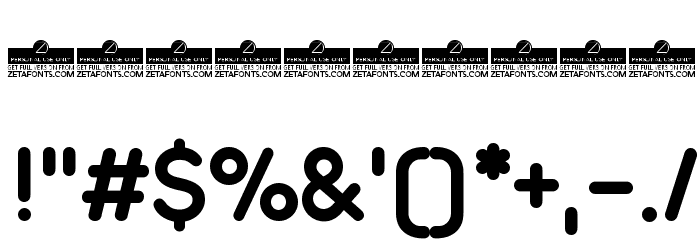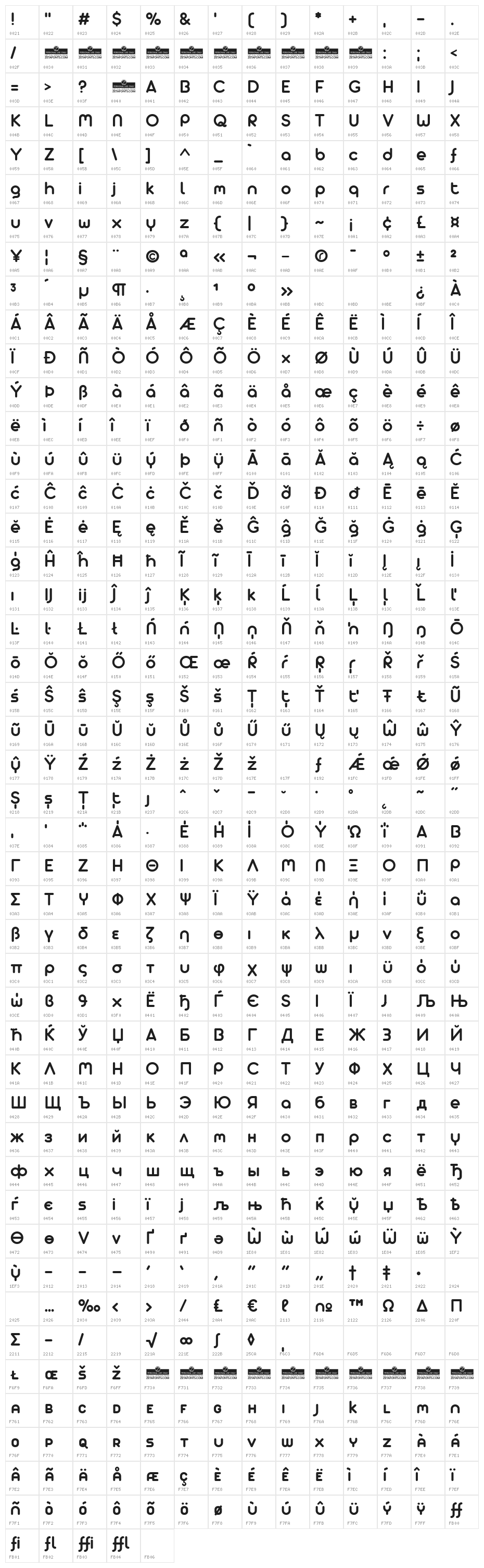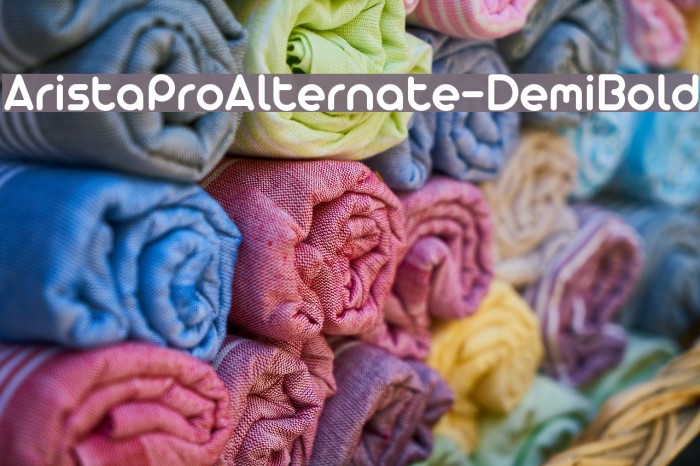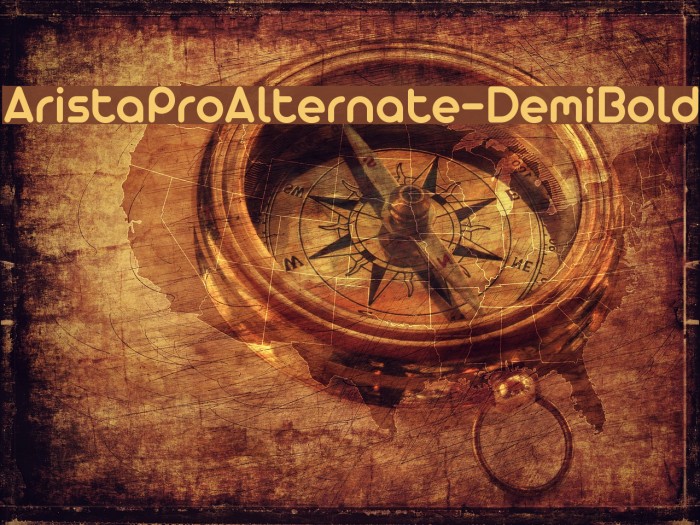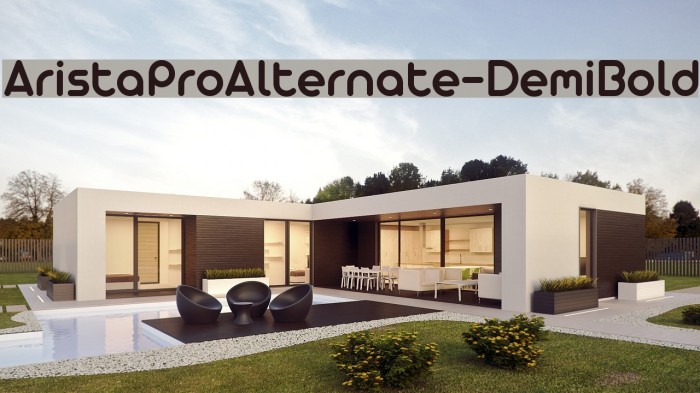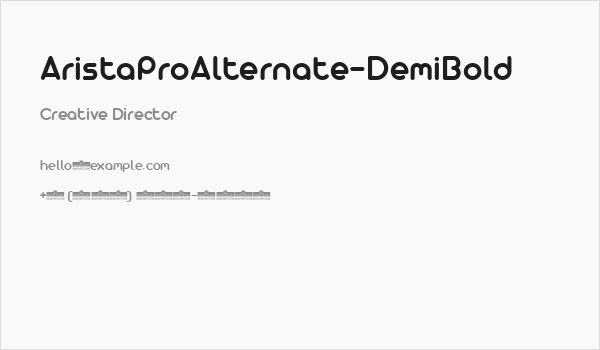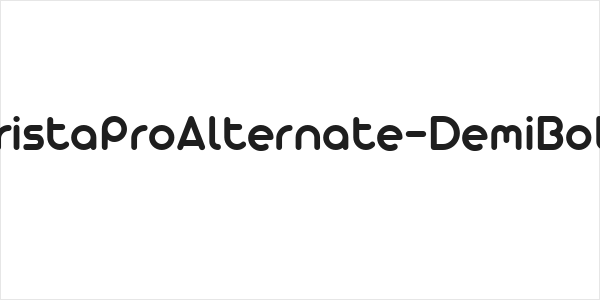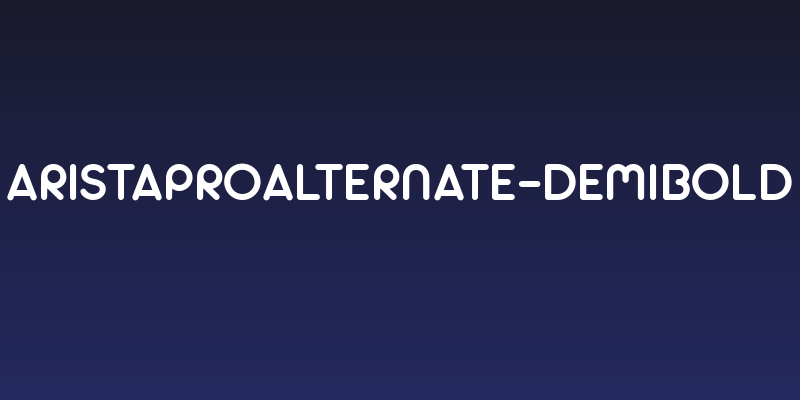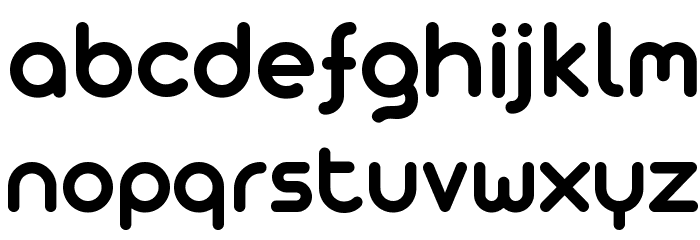
AristaProAlternate-DemiBold Font
AristaProAlternate-DemiBold Description
This font features a modern, rounded style with smooth curves and a friendly appearance. The characters are bold and have a consistent stroke width, giving them a uniform look. The uppercase and lowercase letters maintain a cohesive design, with rounded edges that create a soft and approachable feel. The numerals and special characters follow the same design principles, ensuring visual harmony across all elements. This font is versatile and can be used in various design contexts where a contemporary and inviting aesthetic is desired.
| Proposed Projects | Ideal for branding, advertising, packaging, and digital media where a modern and approachable look is needed. |